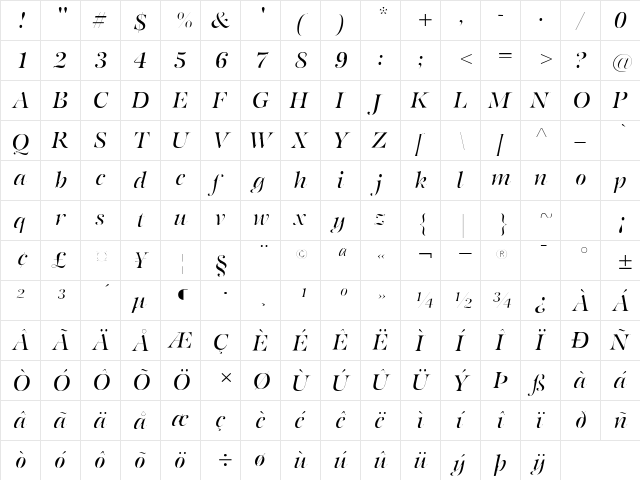
SerenaSSK Italic
Design Context for SerenaSSK Typeface
SerenaSSK offers clean, dependable letterforms without strong stylistic allegiance, making it a practical choice for designers who need flexibility. The slanted form adds forward momentum and visual energy.